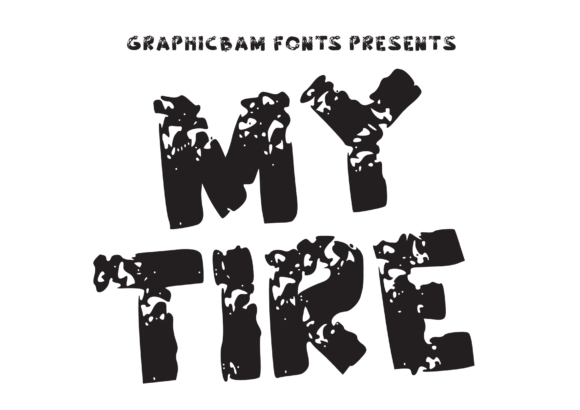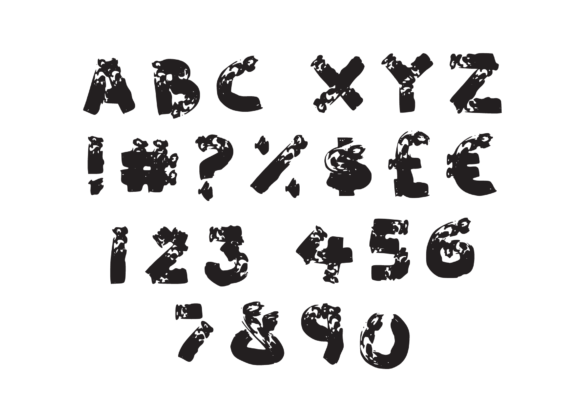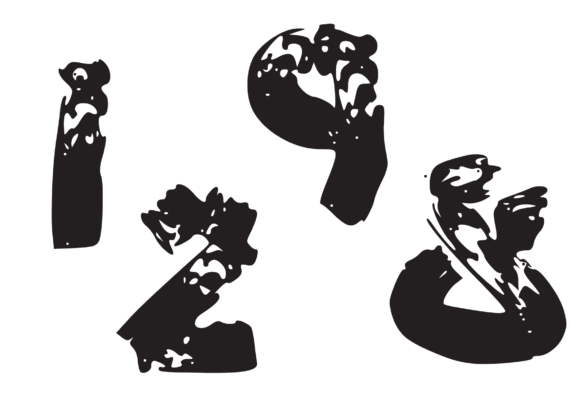
My Tire Font
About the My Tire Font
The My Tire Font offers a perfect balance of form and function for your design needs. My Tire is a cool and bold display font. It will look stunning on any poster flyer or print.
Use this font for your designs and explore its endless possibilities.
My Tire’s bold, impactful design makes it ideal for headlines, posters, and short impactful branding statements. It’s particularly effective in projects requiring a strong, assertive presence – think edgy streetwear brands or bold event announcements. Avoid using it for body text or long-form content; its weight and character make it unsuitable for extended readability.
Consider pairing My Tire with a clean sans-serif like Open Sans for a balanced contrast, or a more delicate serif such as Garamond for a sophisticated juxtaposition. For a modern, slightly rebellious feel, a geometric sans-serif like Montserrat could also work well.
The font exudes a confident, modern energy. Its strong strokes and distinct letterforms lend themselves to projects needing a powerful visual identity. Avoid pairing it with overly ornate or whimsical fonts, as this would dilute its inherent strength.
My Tire Font Usage Examples
My Tire Font Example